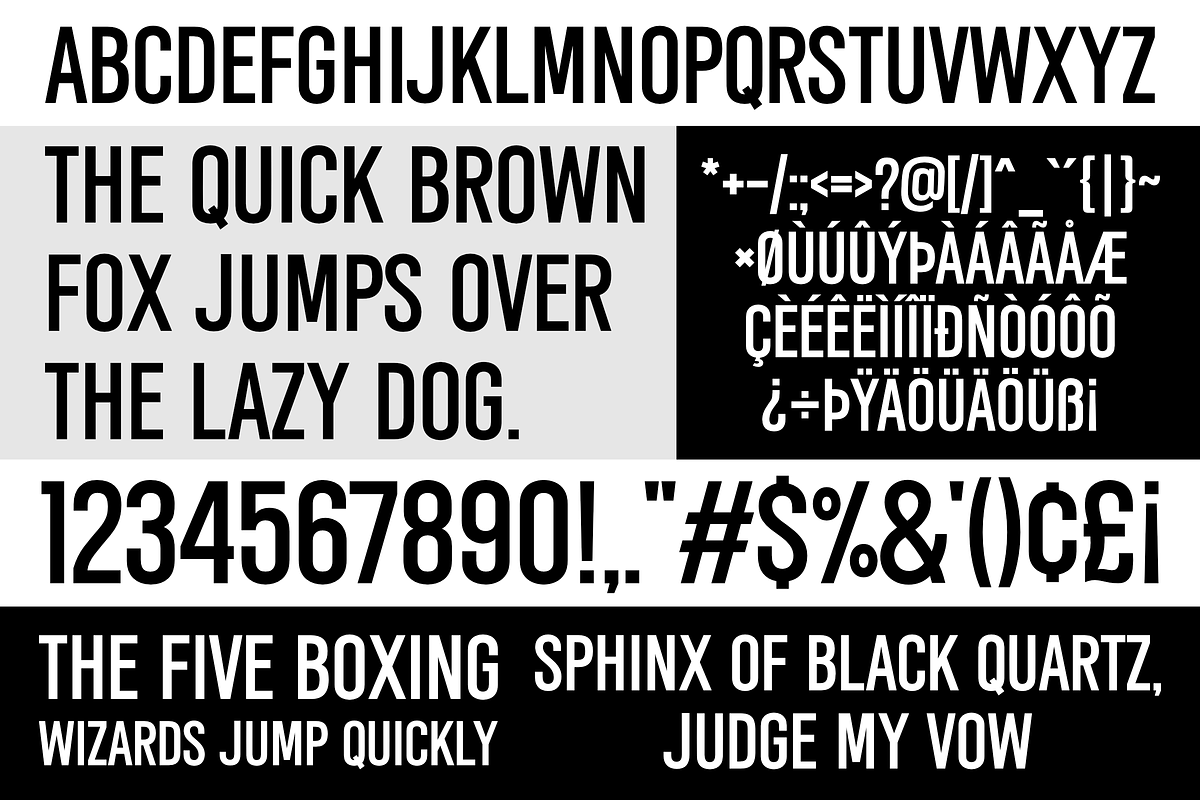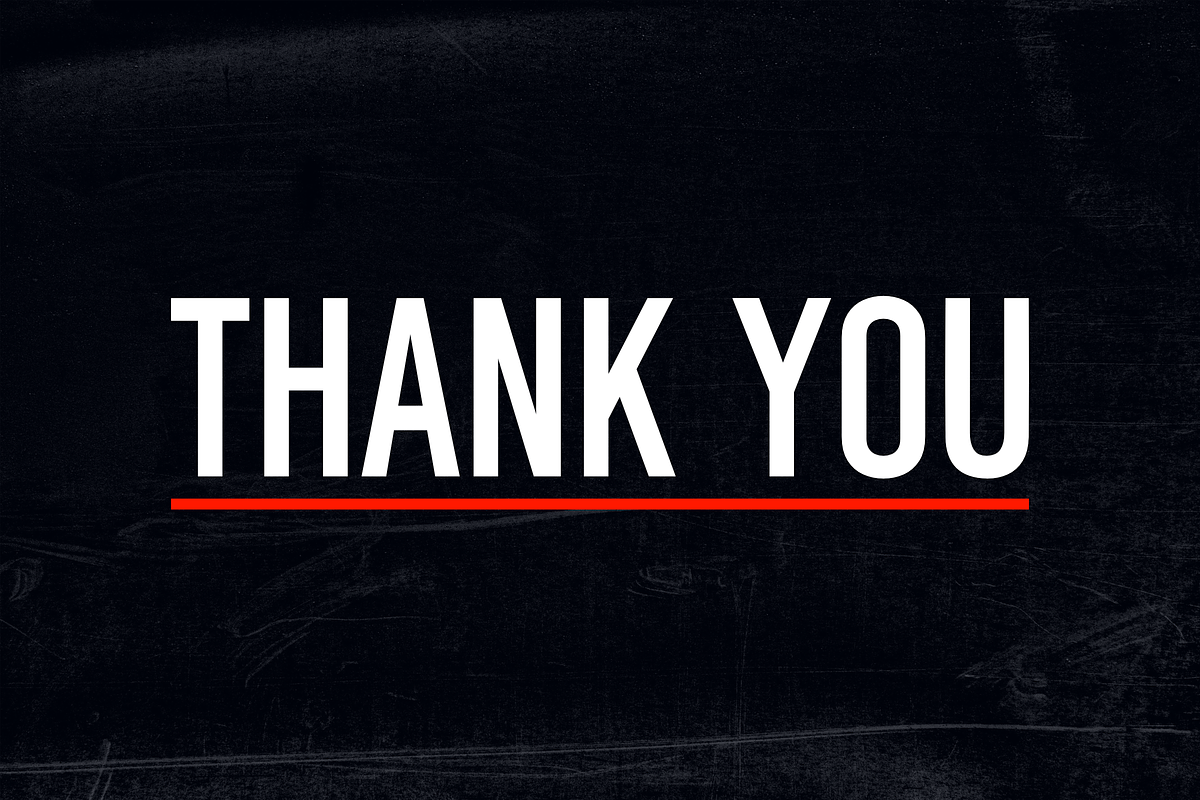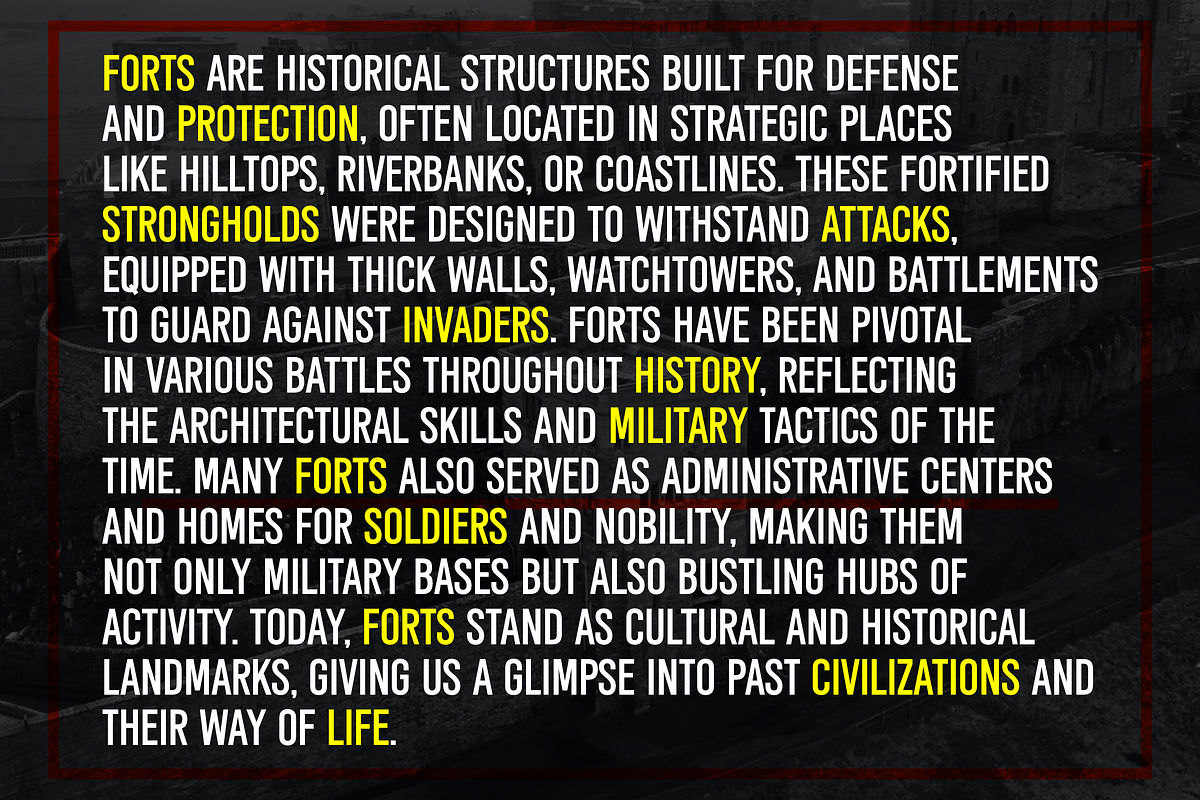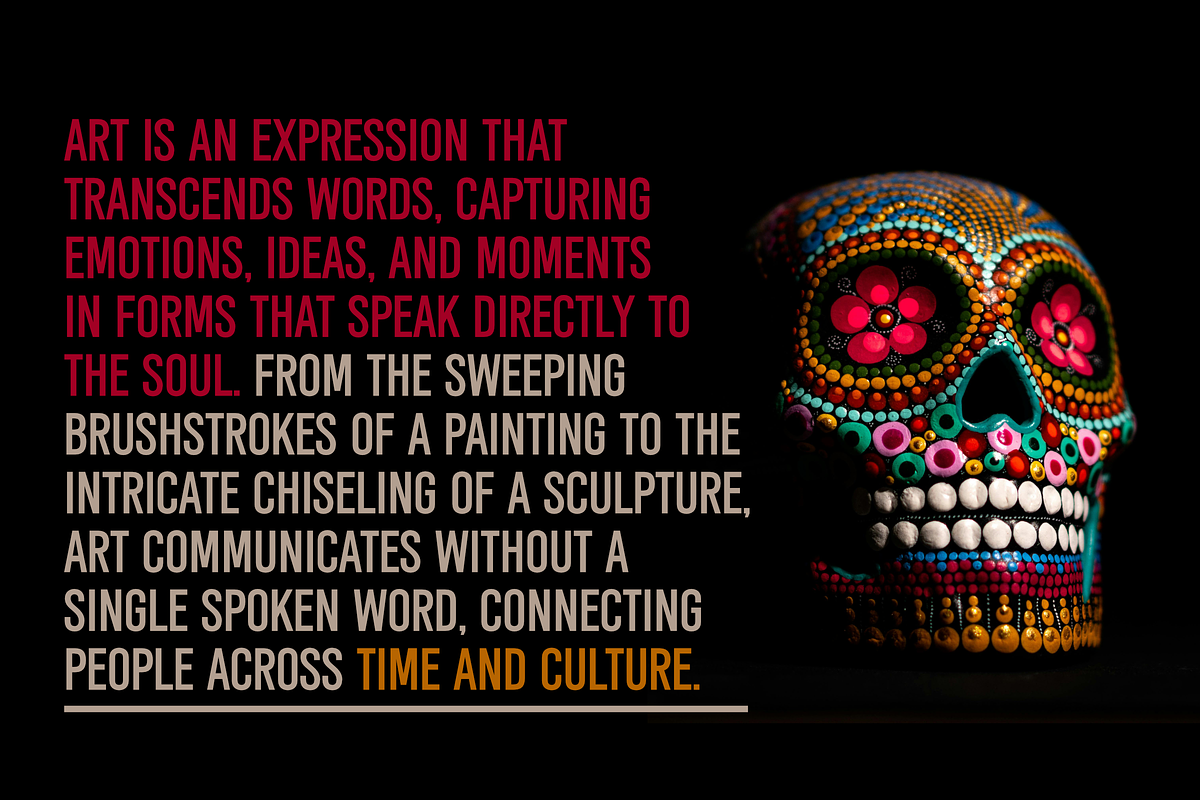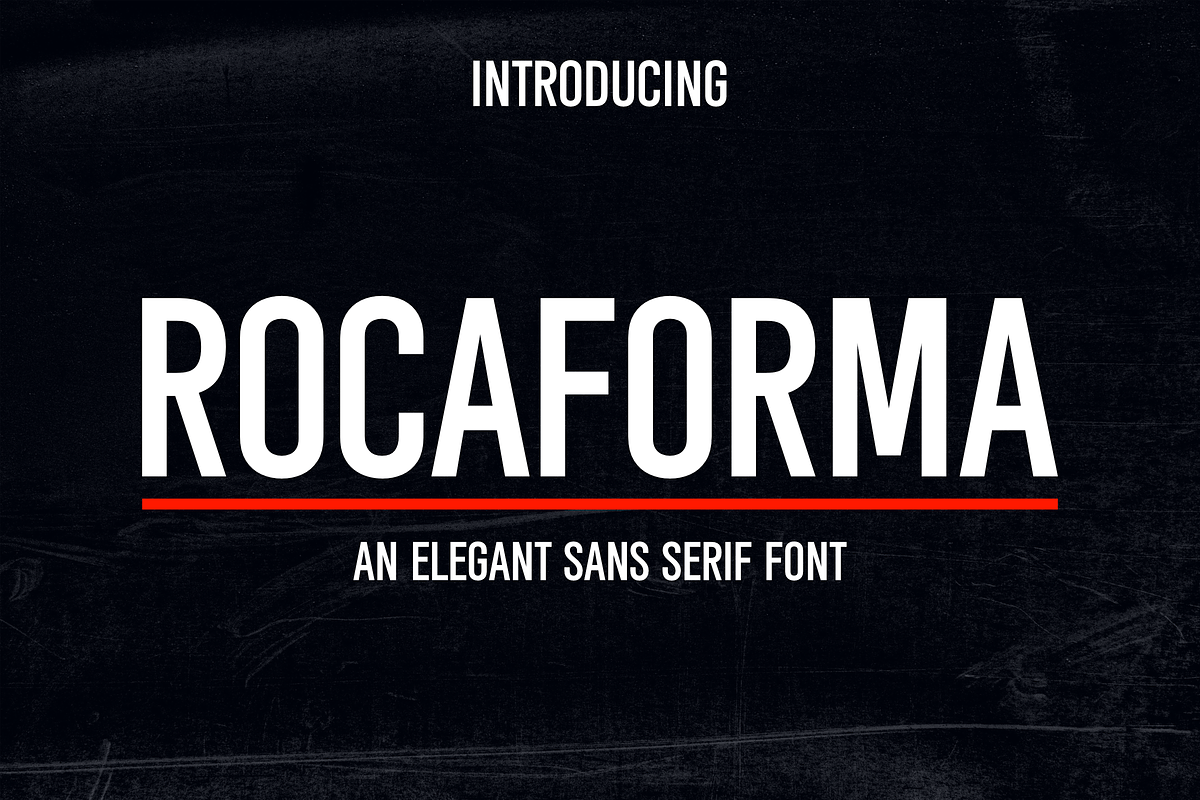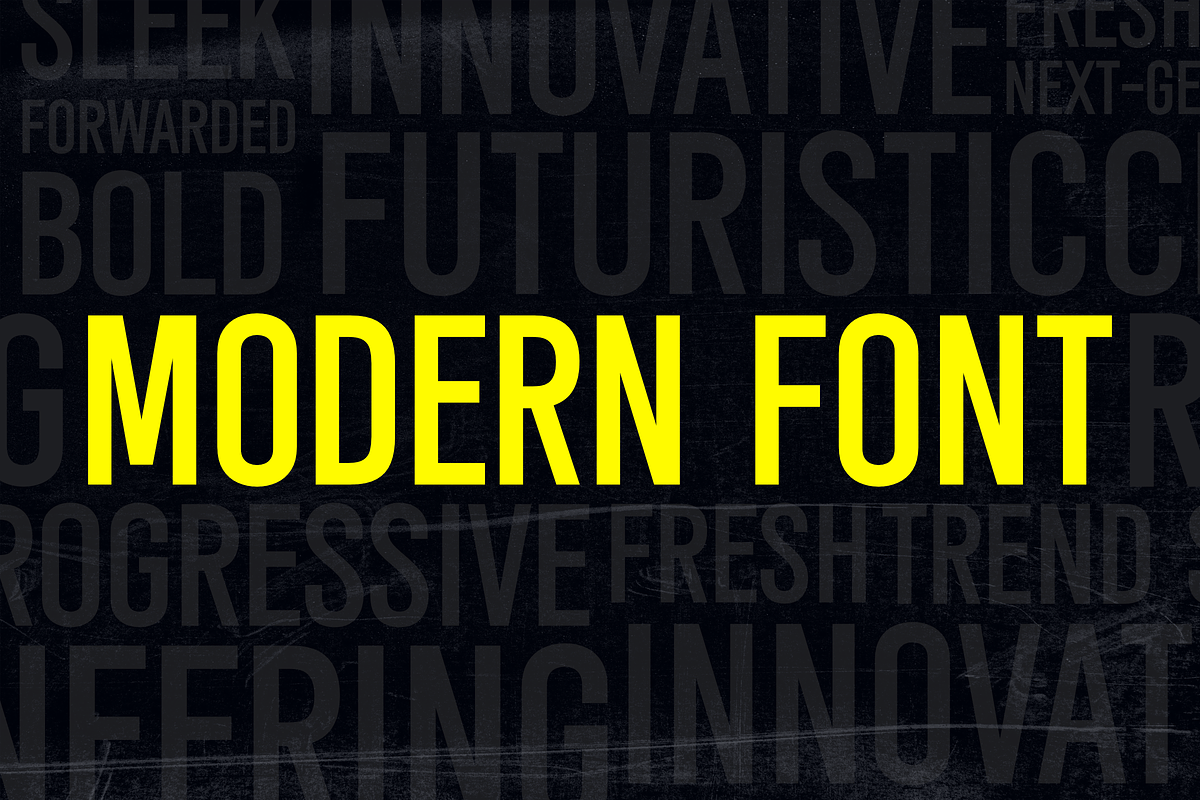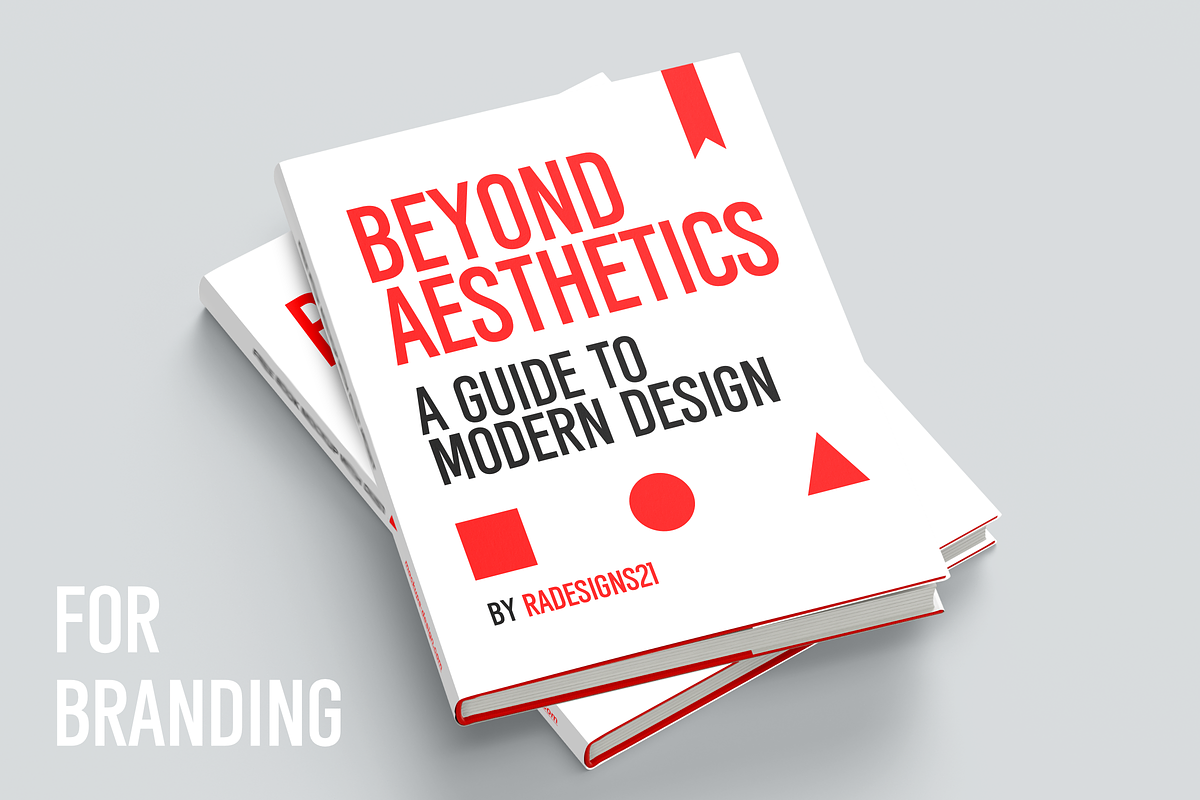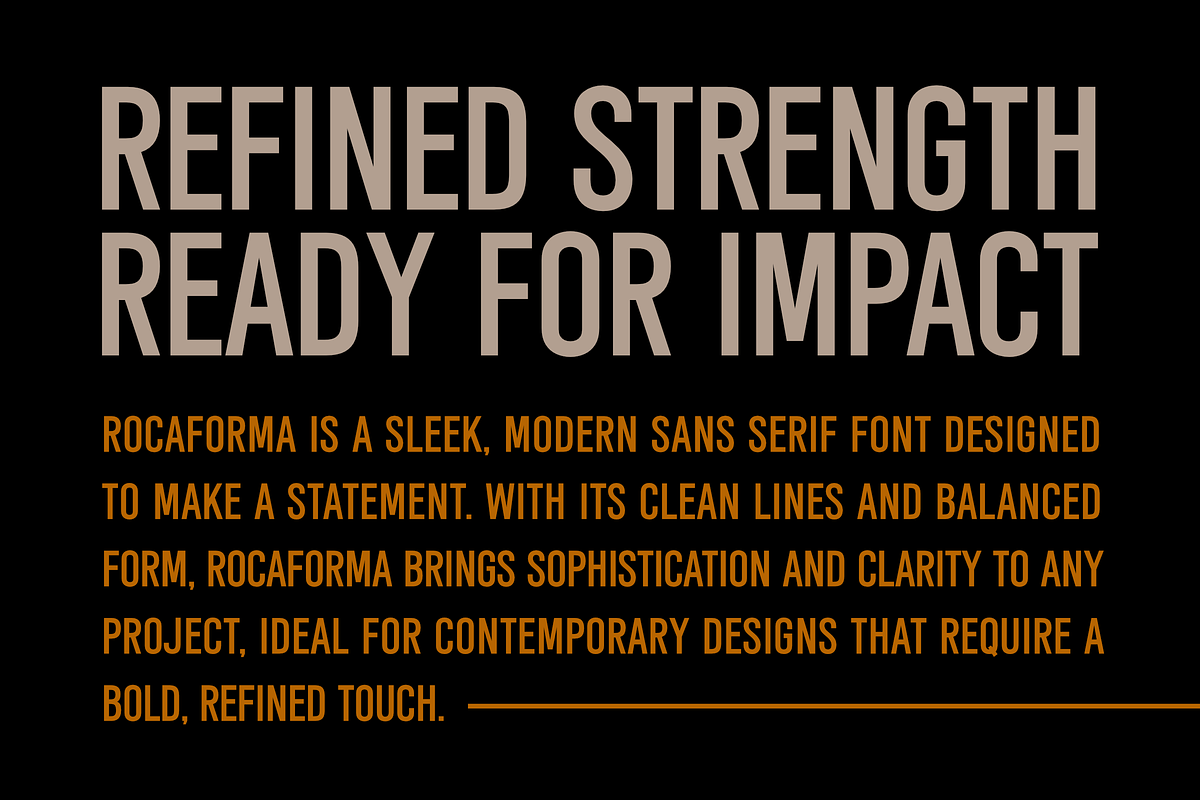
Rocaforma
Rocaforma is a highly professional, modern sans serif font designed for versatility and sophistication. Its clean, refined lines make it perfect for a wide range of projects, from corporate branding to editorial design, offering both clarity and elegance. Whether used in logos, websites, or print materials, Rocaforma’s sleek, contemporary aesthetic ensures a polished and authoritative presence.